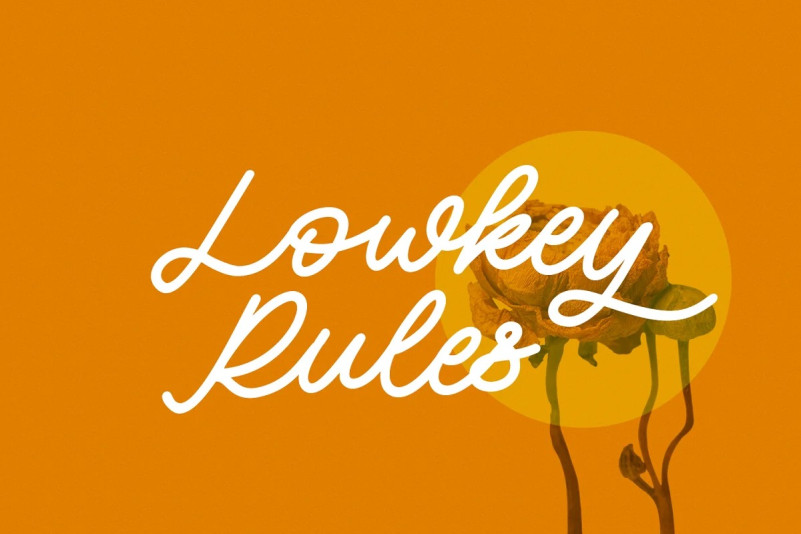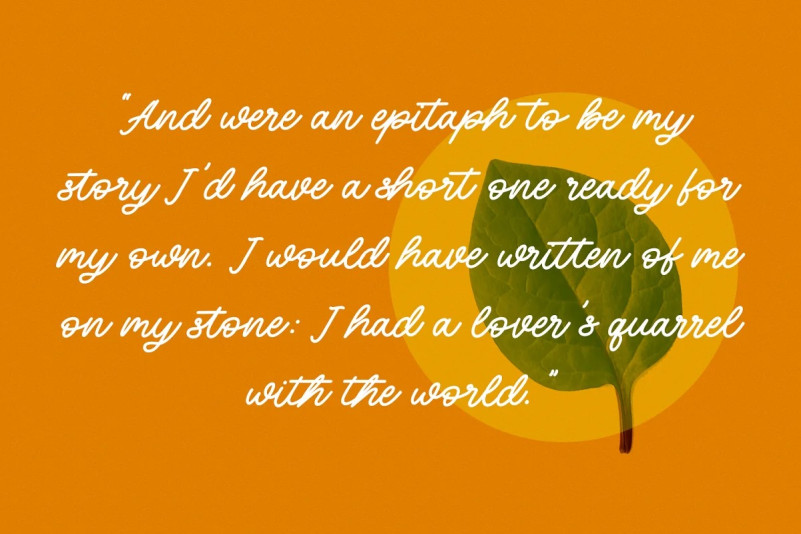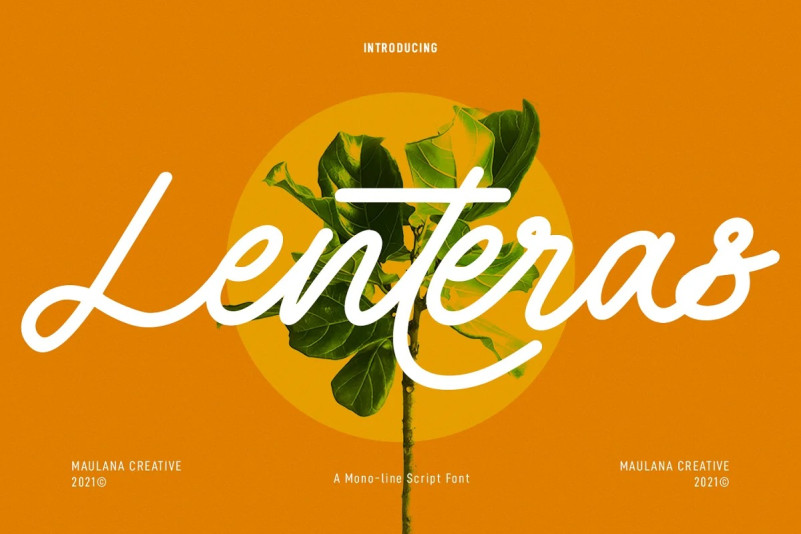
Lenteras Font
Lenteras Font is a modern script font. With cursive mono-line stroke, fun character with some of ligatures. To give you an extra creative work. Lenteras font support multilingual more than 100+ language. This font is good for logo design, Social media, Movie Titles, Books Titles, a short text even a long text letter and good for your secondary text font with sans or serif. Make a stunning work with Lenteras font.